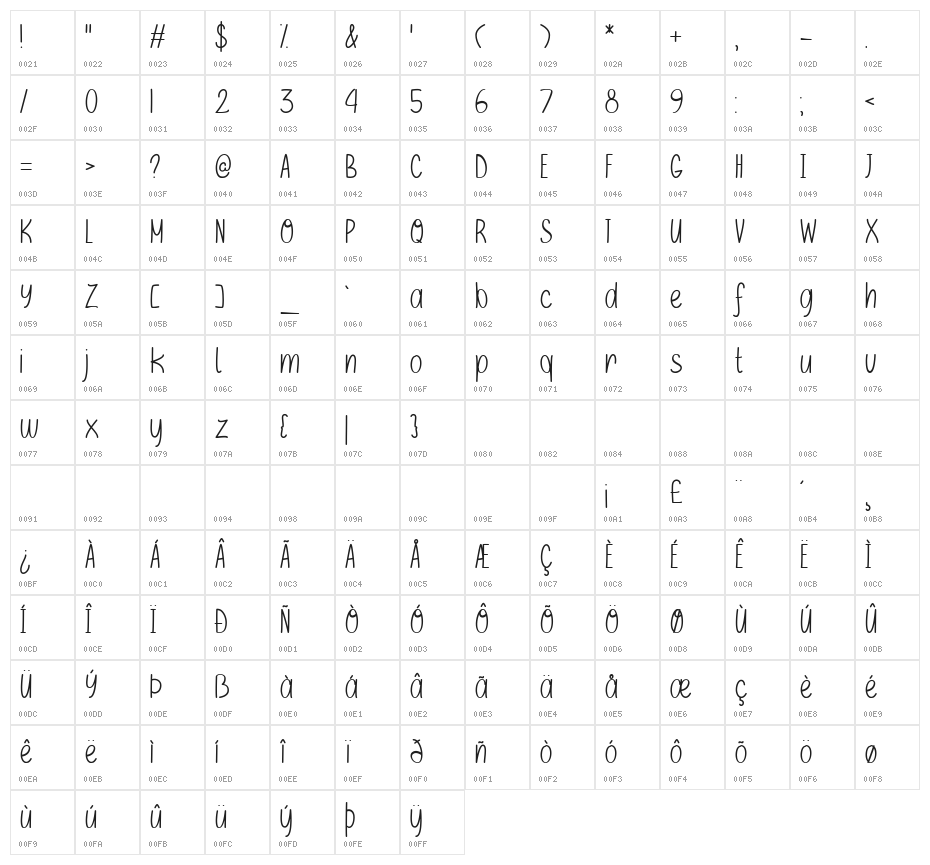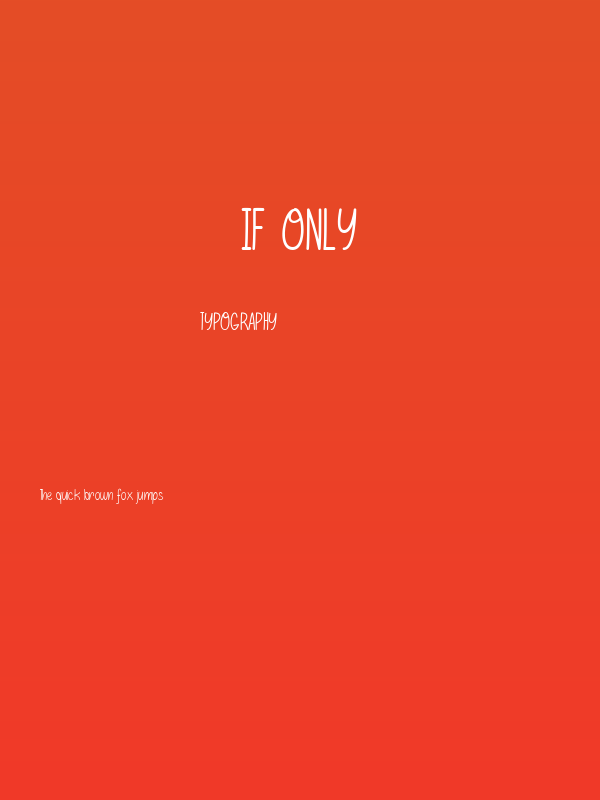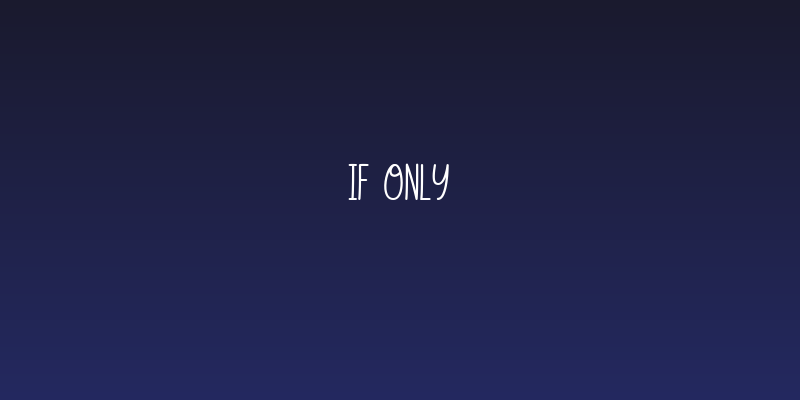
If Only Font
If Only Description
This font features a playful and whimsical style with elongated, slightly irregular strokes that give it a handwritten appearance. The characters are tall and narrow, with a consistent stroke width that maintains a clean and legible look. The uppercase letters are slightly taller than the lowercase, adding a touch of elegance. The numbers and special characters follow the same playful design, making the font versatile for various creative uses. Its unique style is perfect for projects that require a personal and approachable feel.
Overall StylePlayful
Use CaseLogos, Invitations, Greeting Cards
Proposed ProjectsIdeal for greeting cards, children's books, playful branding, and casual invitations.